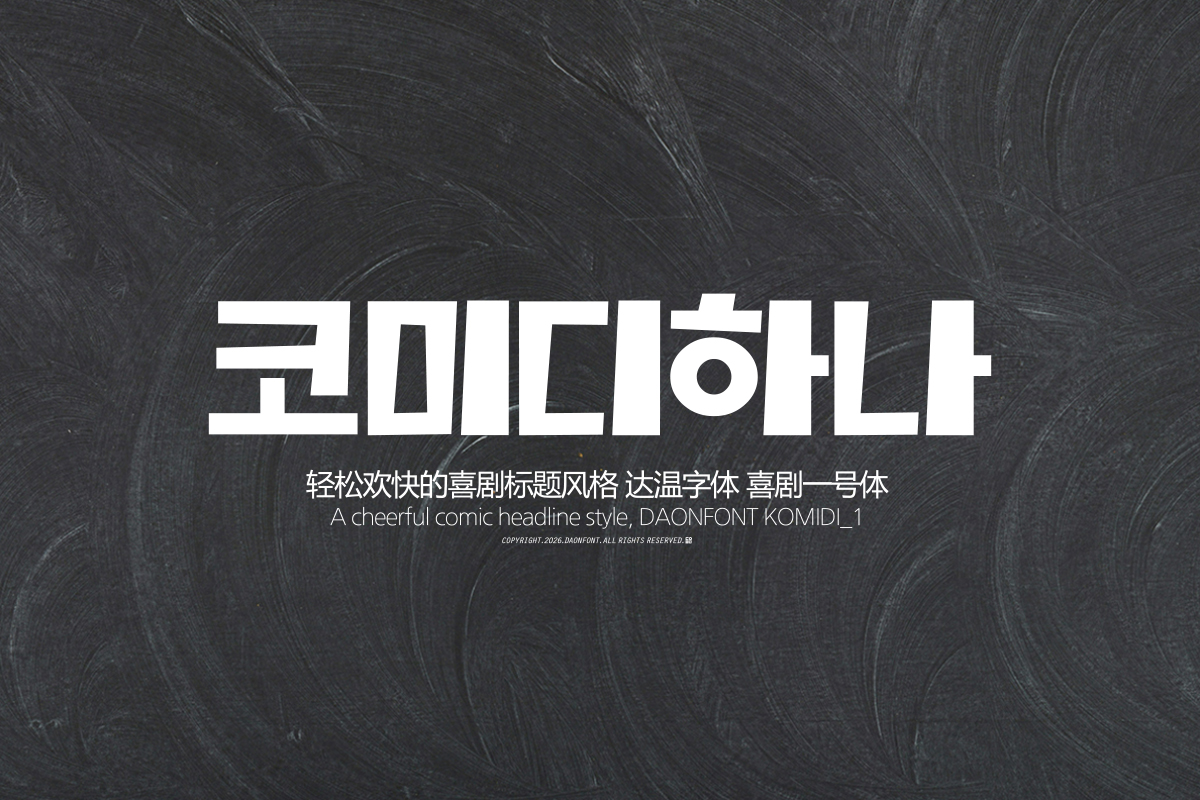
DAON kOMIDI1
True to its name, 'KOMIDI1' is a Korean display typeface that captures joy and wit. It imbues the characters with a playful and lively sensibility, conveying a bright and positive impression to the viewer. A cheerful atmosphere can be felt even in regular text, naturally expressing laughter and friendliness within designs.